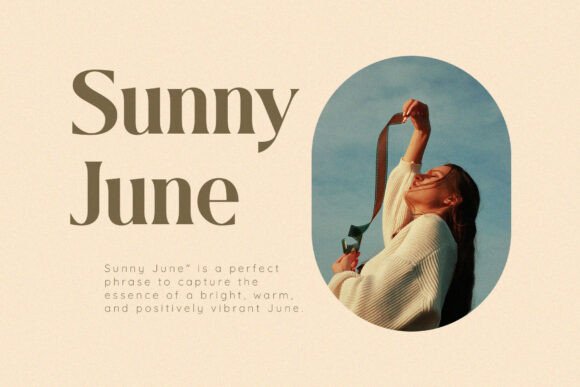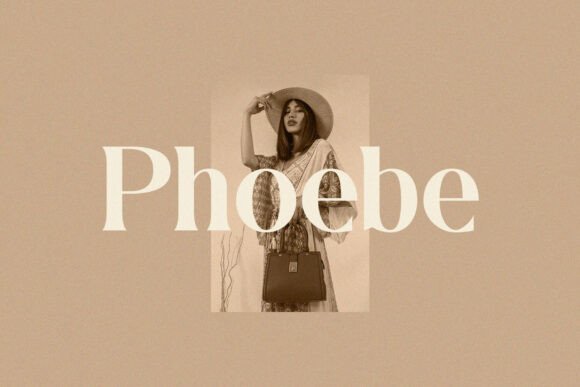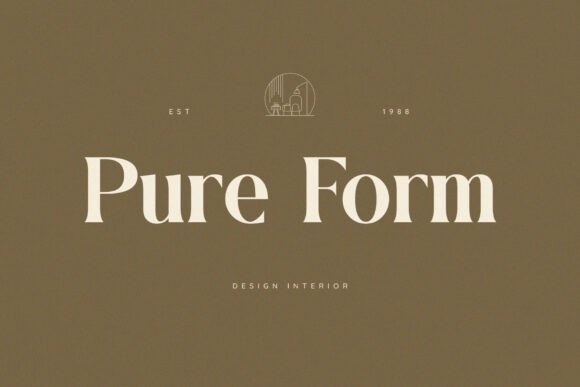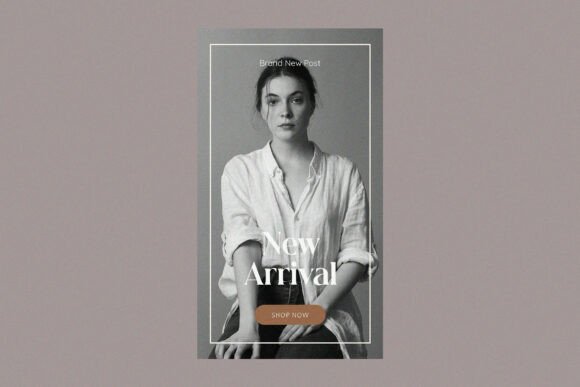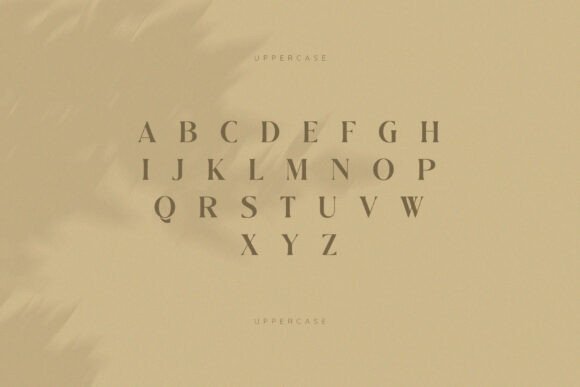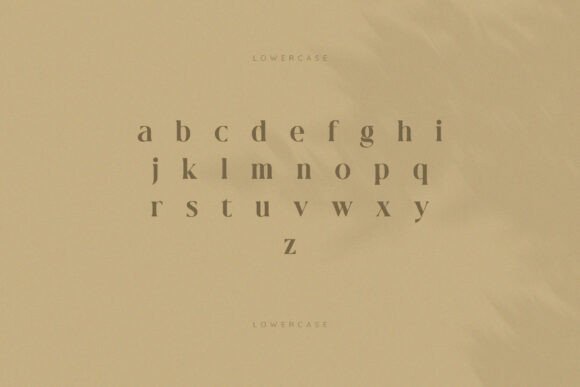
Introducing Classma: Elevate Your Brand with a Touch of Sophistication
In the world of typography, the right font can make all the difference in conveying the essence of your brand or editorial content. Classma, a high-contrast serif font, is here to revolutionize your visual language with its unique blend of sophistication, elegance, and modernity. Designed for the discerning designer, Classma offers a perfect harmony between timeless tradition and contemporary aesthetics, making it an ideal choice for premium branding, fashion editorials, luxury packaging, and high-end web typography.
The Art of Elegance: Classma’s Design Philosophy
Classma’s design is rooted in the principles of high-contrast serif typography, characterized by sharp serifs, elegant proportions, and a refined appearance. Each letterform is meticulously crafted to exude elegance while ensuring excellent readability across various platforms. The font’s sharp serifs add a touch of sophistication, making it perfect for luxury brands and high-end publications. At the same time, its elegant proportions ensure that the text remains clear and legible, even at smaller font sizes.
Timeless Tradition Meets Contemporary Aesthetics
Classma’s design strikes a perfect balance between tradition and modernity. The font’s classic serif structure pays homage to traditional typography, while its refined features and modern flair bring it up to date. This blend of old and new makes Classma an incredibly versatile font, suitable for a wide range of applications, from luxury branding and fashion editorials to premium web typography and high-end packaging.
Crafted for Designers: Ideal for High-End Projects
Classma is specifically designed for designers who seek a typeface with character. Its unique blend of elegance, sophistication, and modernity makes it an ideal choice for high-end projects. Whether you’re working on a luxury brand identity, a fashion editorial, or a premium web design project, Classma provides the perfect typographic solution. The font’s refined features and excellent readability ensure that your content stands out and communicates your message with clarity and style.
Key Features of Classma
- High-contrast serif design: Sharp serifs and elegant proportions create a sophisticated and refined appearance.
- Excellent readability: Carefully designed letterforms ensure clear legibility across various platforms and font sizes.
- Timeless tradition meets modernity: A perfect balance of classic serif structure and modern flair.
- Versatile and adaptable: Suitable for luxury branding, fashion editorials, premium web typography, and high-end packaging.
Applications of Classma: Where Elegance Meets Excellence
Classma’s versatility and elegance make it an ideal choice for a wide range of applications. Here are some of the key areas where Classma excels:
- Luxury branding: Create a sophisticated brand identity with Classma’s refined features and elegant appearance.
- Fashion editorials: Add a touch of elegance and sophistication to your fashion editorials with Classma’s high-contrast serif design.
- Premium web typography: Elevate your web design with Classma’s excellent readability and modern flair.
- Luxury packaging: Create stunning luxury packaging with Classma’s refined features and elegant appearance.
In conclusion, Classma is a high-contrast serif font that offers a unique blend of sophistication, elegance, and modernity. Its refined features, excellent readability, and versatility make it an ideal choice for designers seeking a typeface with character. Whether you’re working on a luxury brand identity, a fashion editorial, or a premium web design project, Classma provides the perfect typographic solution. Elevate your brand or editorial content with Classma and experience the art of elegance in typography.